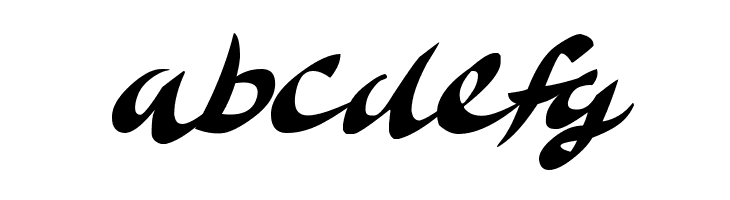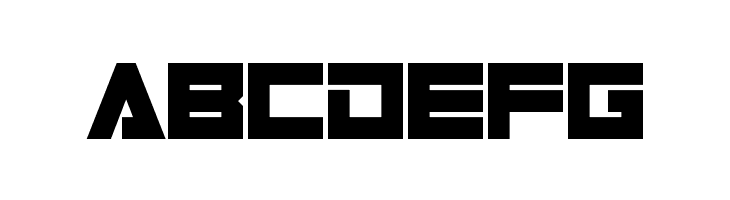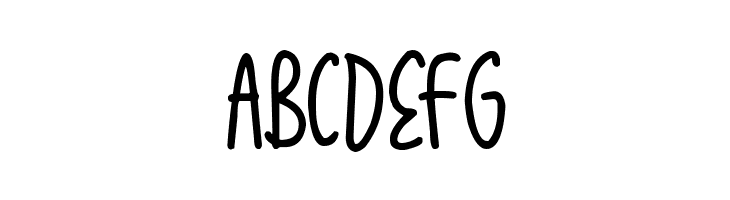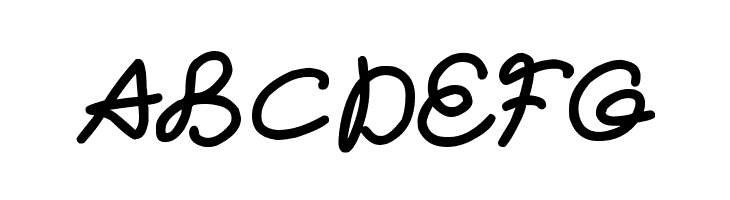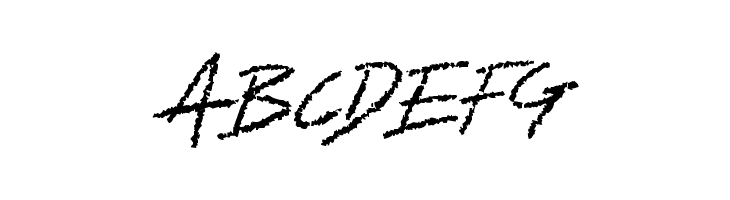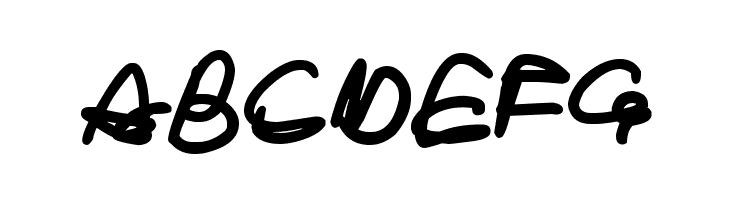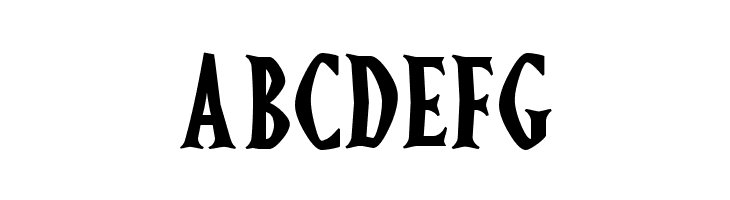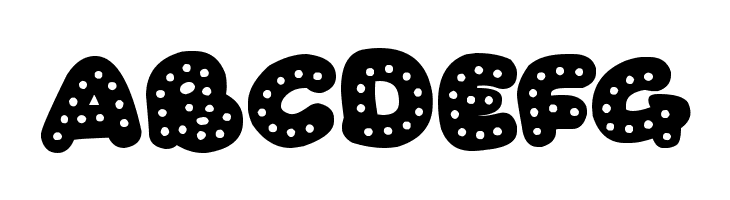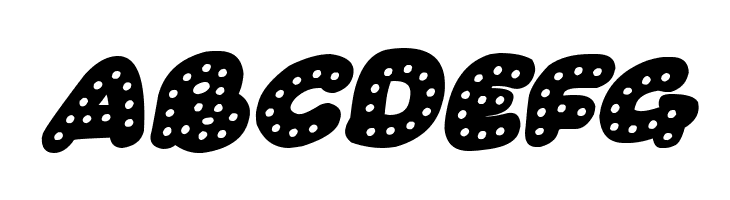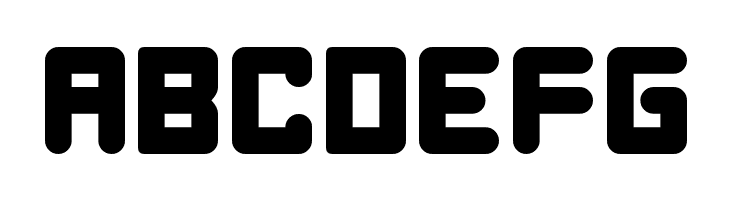
A bold, expressive script font with dynamic, interconnected characters.
A bold, geometric font with a futuristic, digital aesthetic.
A playful, handwritten font with tall, narrow letters and consistent stroke width.
A bold, rounded, and playful font with smooth, flowing characters.
A bold, playful font with rounded, bubbly characters.
A playful, star-embellished decorative font with bold, rounded characters.
A playful, bold script font with a handwritten style.
A dynamic, hand-drawn font with a rough, textured style.
A bold, expressive handwritten font with a graffiti-like style.
A bold, sharp serif font with high contrast and a dramatic style.
A playful, cookie-inspired font with bold, rounded characters and decorative cutouts.
A playful, dotted font with bold, rounded characters perfect for festive designs.
A bold, rounded font with a modern and playful style.
A bold, italic font with rounded characters and a modern, energetic style.
A playful, handwritten font with rounded edges and a casual style.
A bold, geometric sans-serif font with a modern and clean aesthetic.
A bold, modern font with tall, narrow characters and a strong presence.
A playful, dotted font with a whimsical and bubbly appearance.
A bold, playful font with rounded, bubbly characters and a retro vibe.
A playful, bubbly font with rounded, bold characters and whimsical cutouts.
A bold, italic font with rounded edges and a playful, dynamic style.
A playful, bold font with rounded, bubbly characters.
A bold, playful font with a 3D effect and cartoon-like style.
A bold, playful font with rounded, bubbly characters and a whimsical style.
A bold, handwritten-style font with dynamic, slanted characters.
A playful, bold serif font with a whimsical and decorative style.
A playful, bold font with rounded, bubbly characters ideal for whimsical designs.
A bold, impactful font with strong, thick strokes and geometric shapes.
A bold, italic font with a dynamic and energetic style.
A bold, angular, and italicized font with a futuristic design.
A bold, futuristic font with sharp angles and geometric shapes.
A bold, geometric font with a futuristic and energetic style.